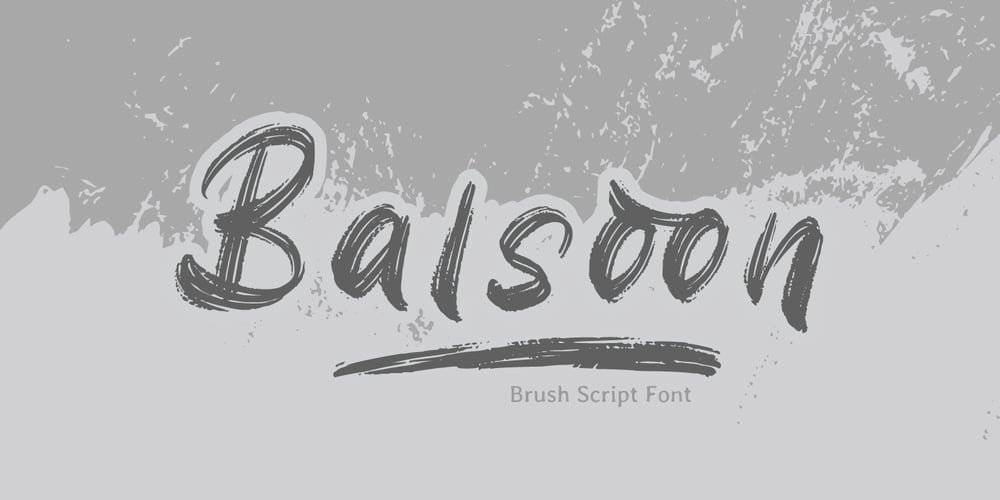
Balsoon Font Family was designed by Fadli Ramadhan Iskandar and published by Attype Studio. Balsoon contains 2 styles and family package options. Introducing Balsoon – Inspired by urban typeface with texture style, Balsoon has strong character perfect for urban street design.Balsoon is perfect for branding, logo, invitation, stationery, product packaging, merchandise, monogram, blog design, game titles, cute style design, Book/Cover Title and more.Features :- Ending swash- Ligatures- Multilingual Support – Made it into separated file to make it easier to use by beginner & separated file user can use the font with software which doesn’t accept open type features.Hope you enjoy with our font!Attype Studio